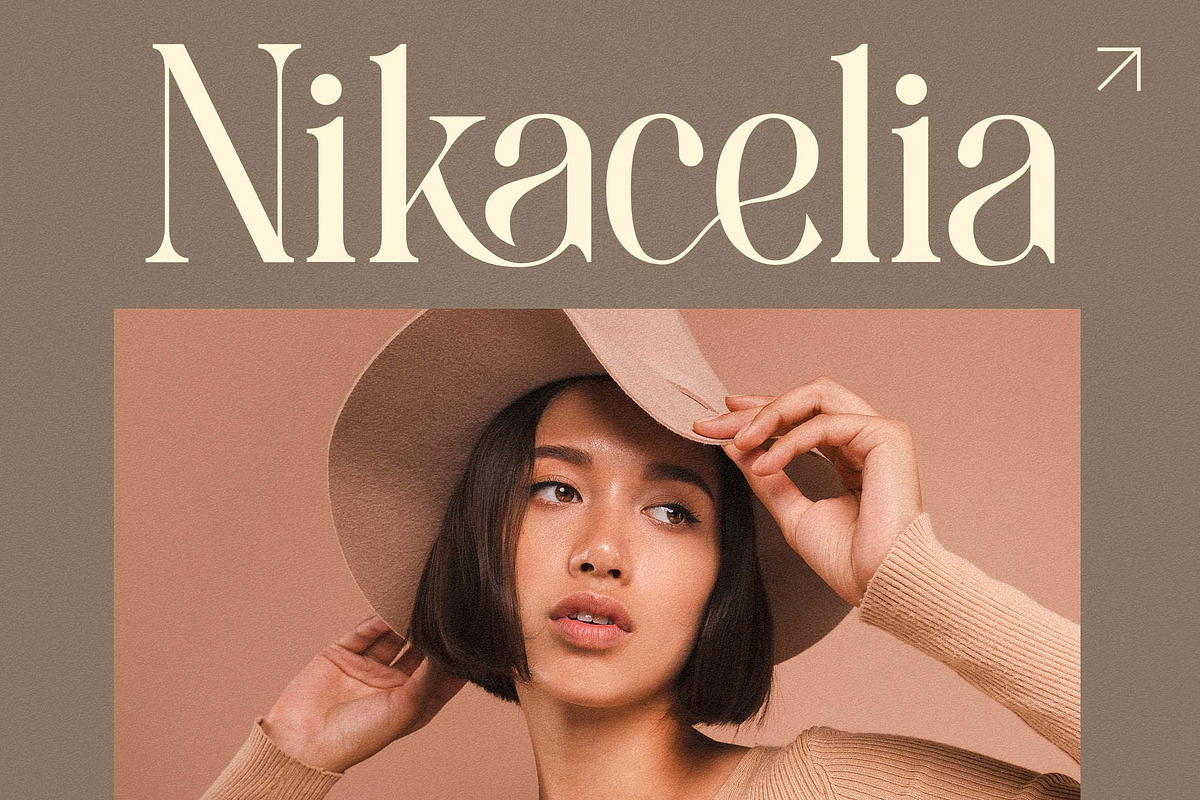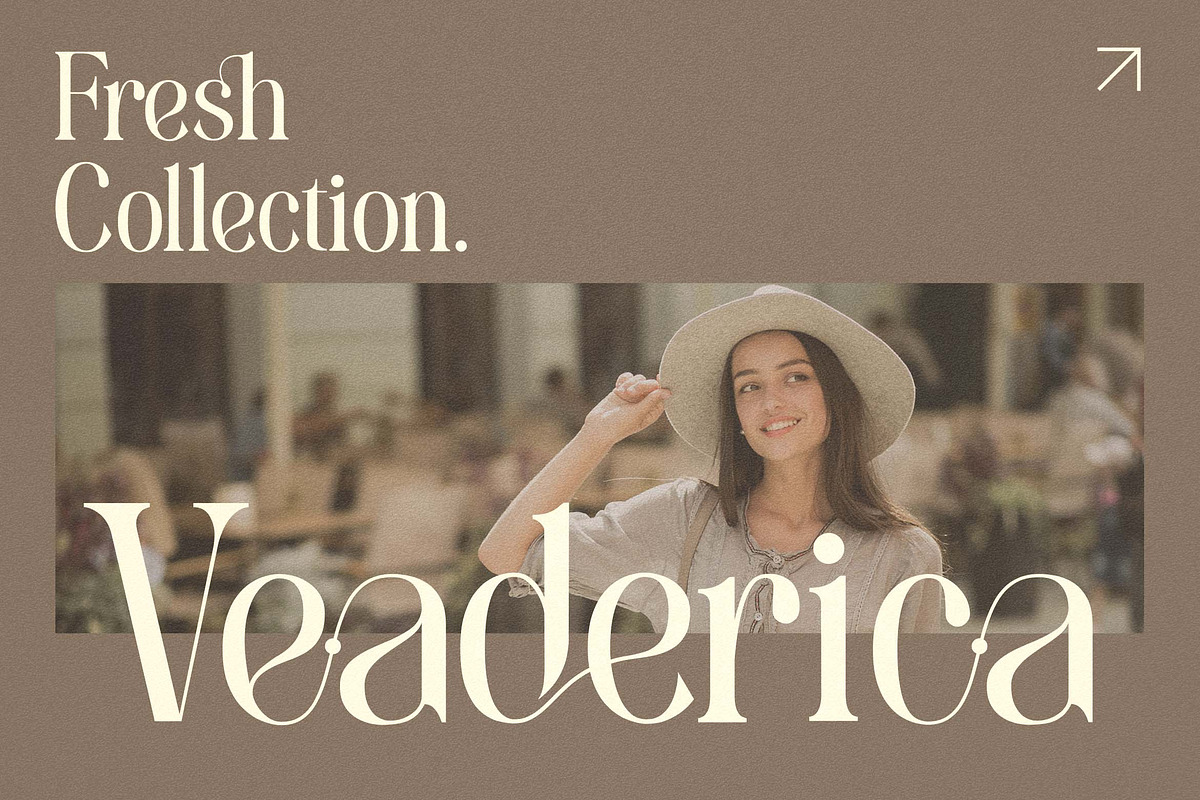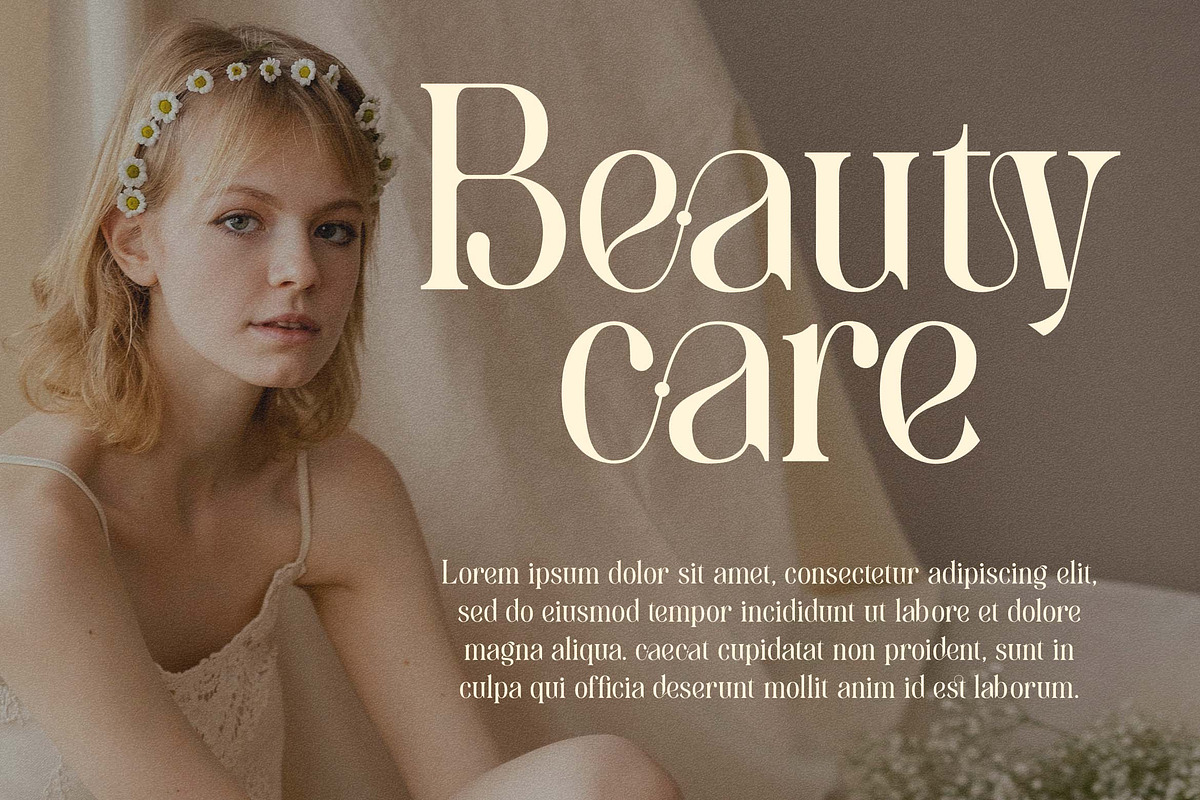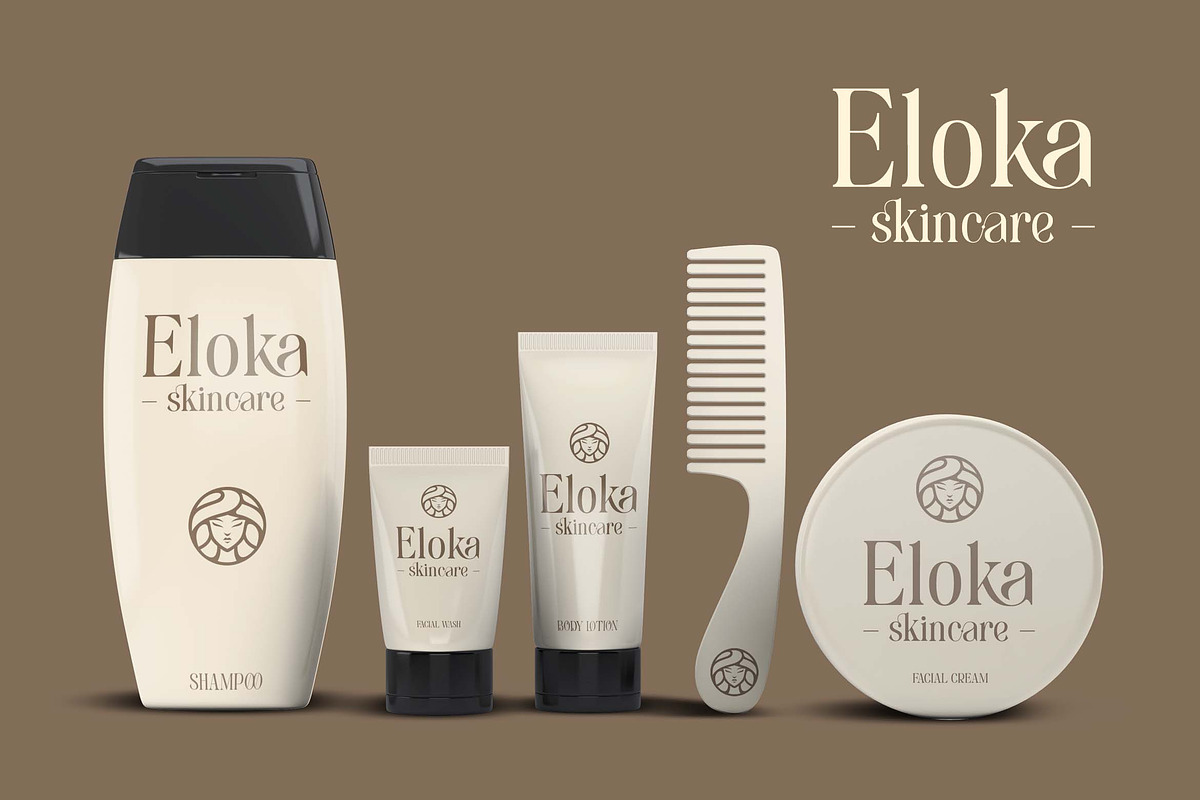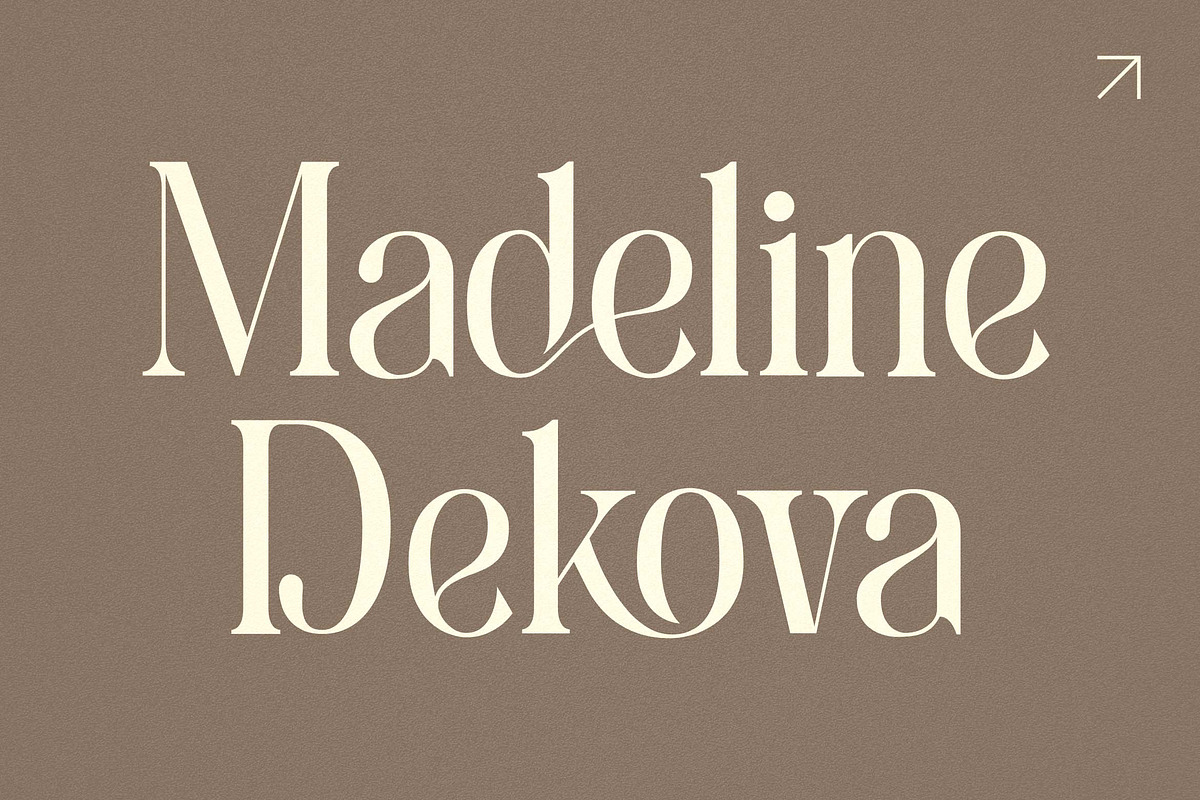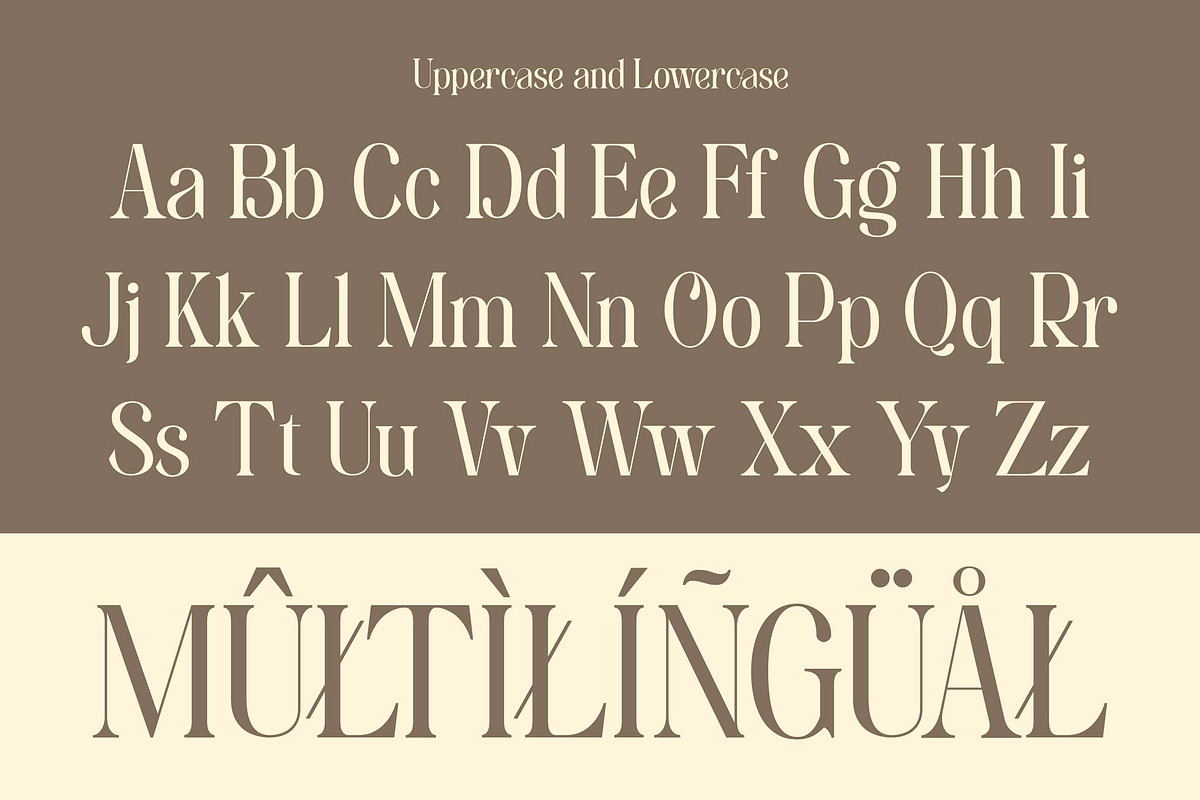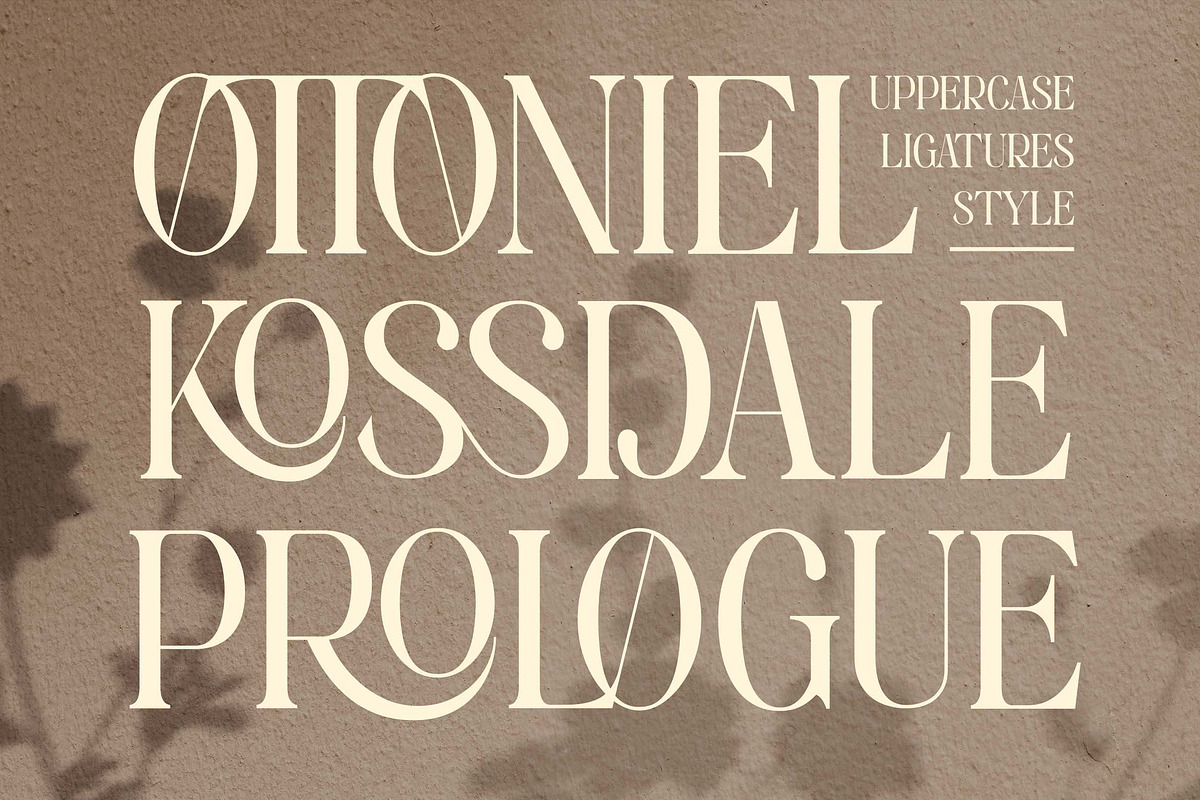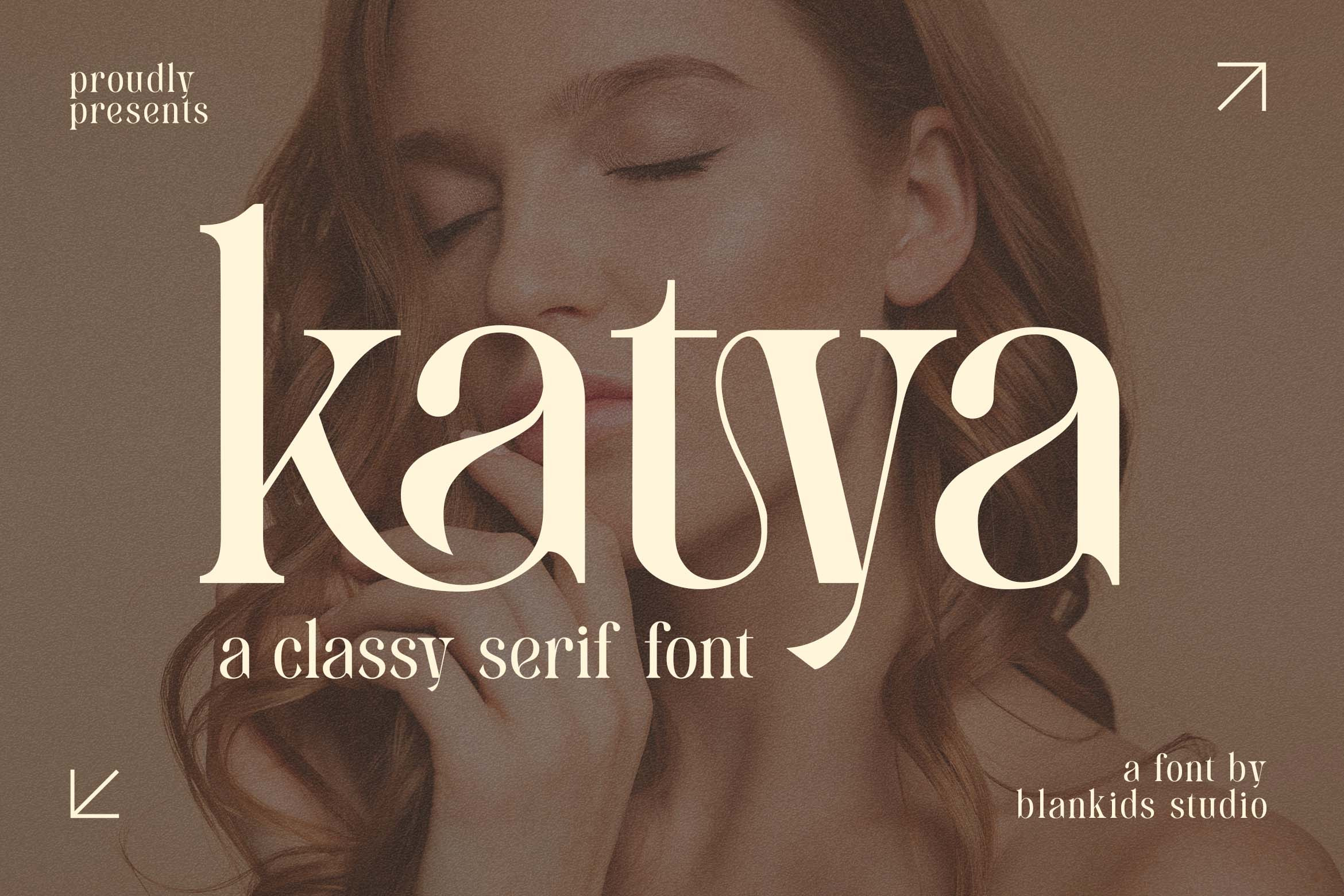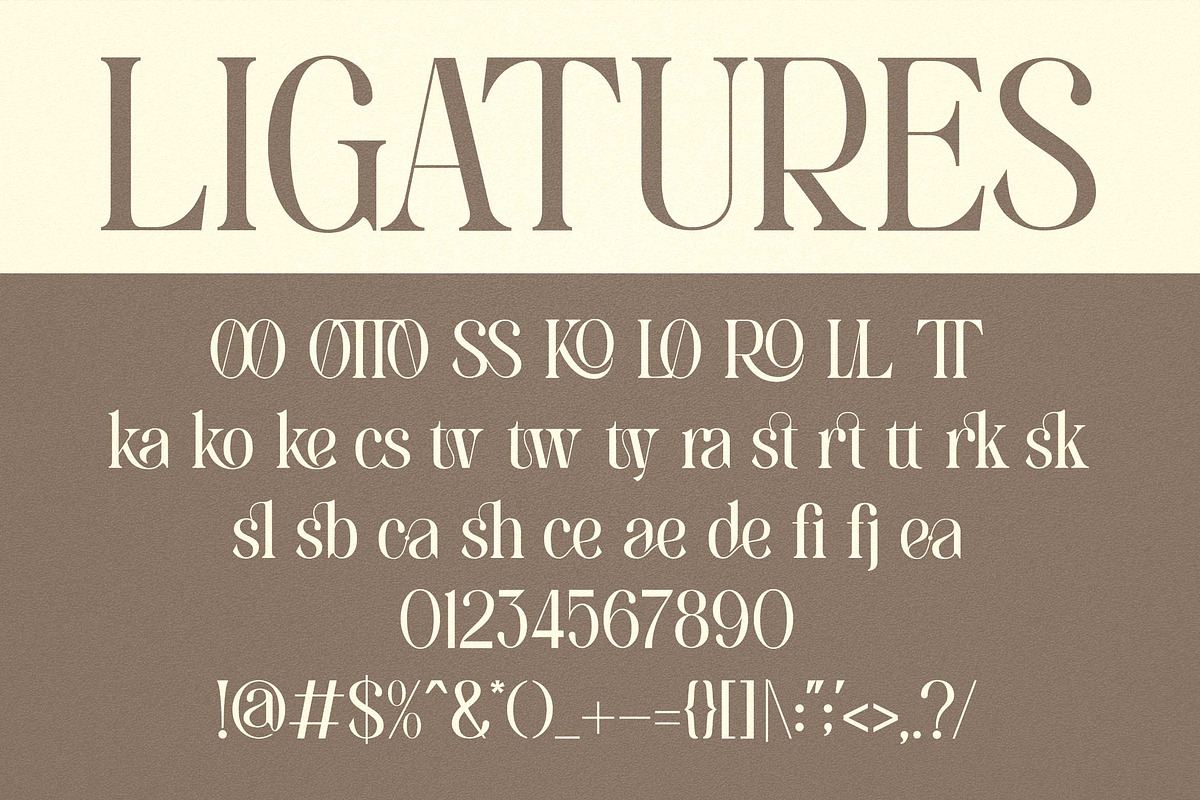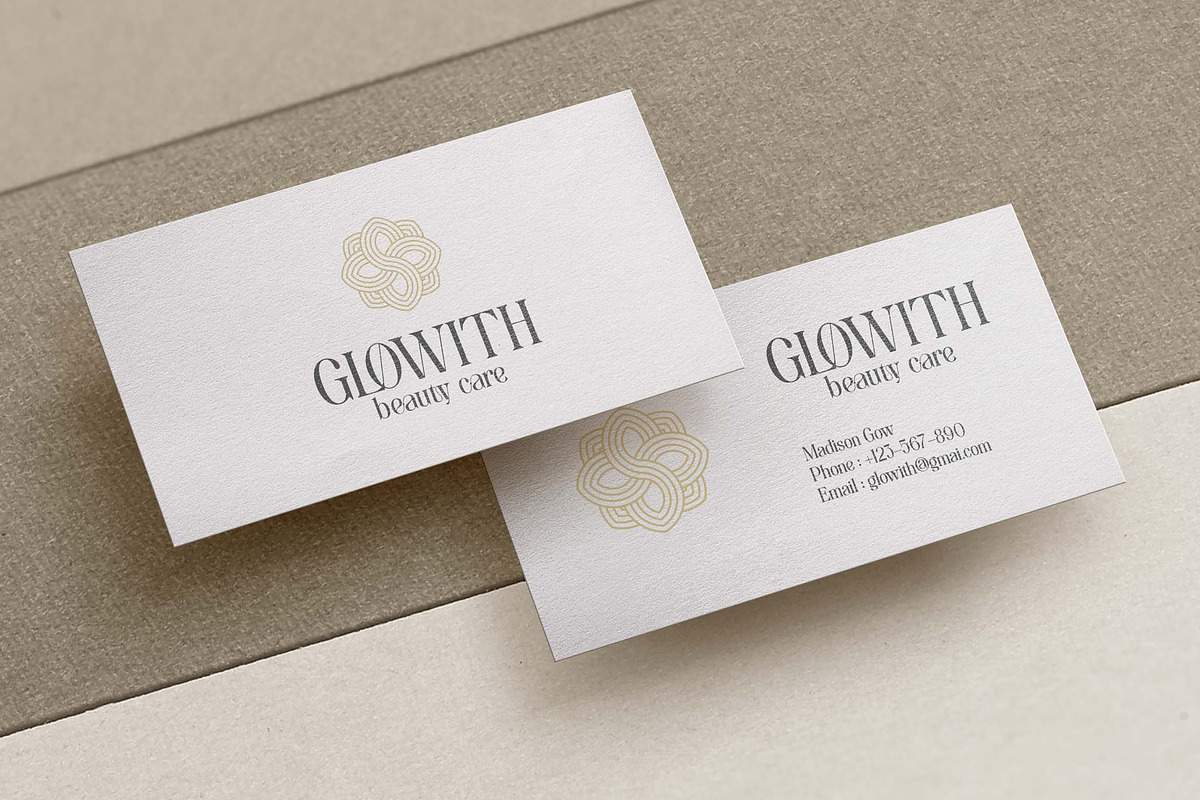
Katya a Classy Serif Font
Hello, awesome people! This time, we have a new font called Katya a Luxury Serif Font by Blankids Studio.
Katya a Luxury Serif Font is made for any professional project branding, such as logotype, watermarks, poster, branding, promotions, product packaging, etc. Every letter has a luxury style design. This font comes in Otf. and Ttf. files.
Katya font includes a full set of luxury uppercase and lowercase letters, numerals and punctuation. This font has a luxury style. See the previews above to get some inspiration on how to use them. Happy designing!